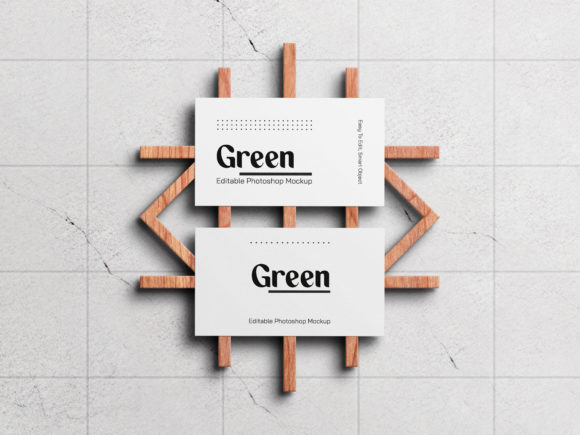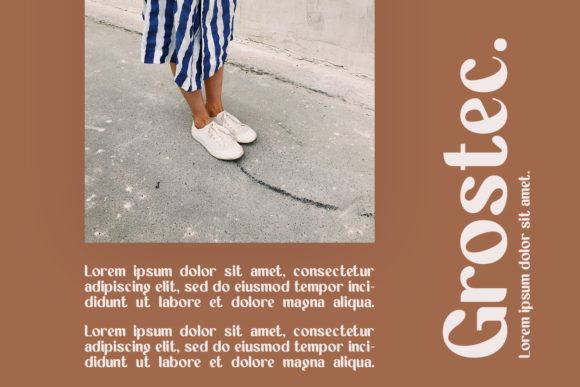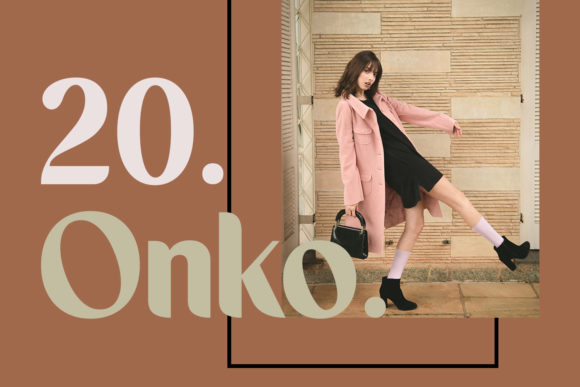
The Perfect Font to Elevate Your Design Game
Have you ever been scrolling through social media, and a single font catches your eye, making you pause and wonder what inspired its creation? That’s exactly what happened to me when I stumbled upon the Grostec Font. Its unique blend of fun and coolness immediately sparked my curiosity.
The Grostec Font is a display font designed to add a touch of personality to any design project. Whether you’re working on a web design, business card, or any other creative endeavor, this font is sure to bring a fresh and exciting vibe. As a designer, you know the importance of selecting the right font to convey your message and make a lasting impression. That’s where the Grostec Font comes in – a valuable addition to any designer’s toolkit.
- Unique Characteristics: The Grostec Font features a unique blend of modern and classic design elements, with a focus on clean lines, geometric shapes, and subtle nuances, making it ideal for branding and corporate identity projects.
Grostec Font Review
As a designer, I was excited to dive into the Grostec Font and see what it had to offer. Here’s my honest take on this font.
- The Grostec Font has a unique and modern feel to it, making it perfect for a variety of designs, from logos to editorials.
- The font is highly customizable, allowing you to adjust the weight, width, and other attributes to suit your specific needs.
- The font is well-suited for both digital and print designs, making it a versatile option for any project.
- The Grostec Font can be quite bold and overpowering, so it’s essential to use it in moderation and balance it with other fonts.
- The font may not be suitable for large blocks of text, as it can become visually overwhelming.
- The font is not as well-suited for formal or traditional designs, where a more classic font may be a better choice.
Overall, I think the Grostec Font is a great option for designers who want to add a modern touch to their projects. While it has some limitations, it’s a versatile and customizable font that can be a great addition to any design toolkit.
For optimal results, use Grostec Font in bold or italic styles to add emphasis to your text. You can also pair it with other fonts to create a unique and visually appealing design.
Grostec Font is ideal for use in logos,